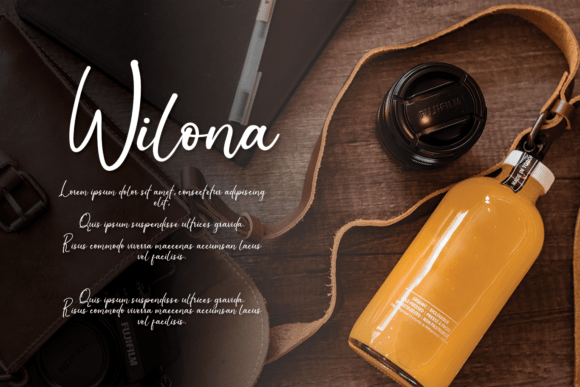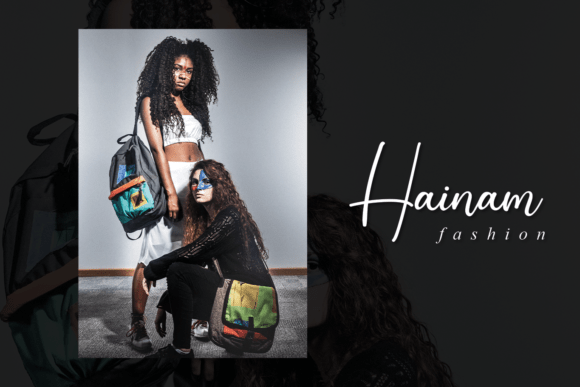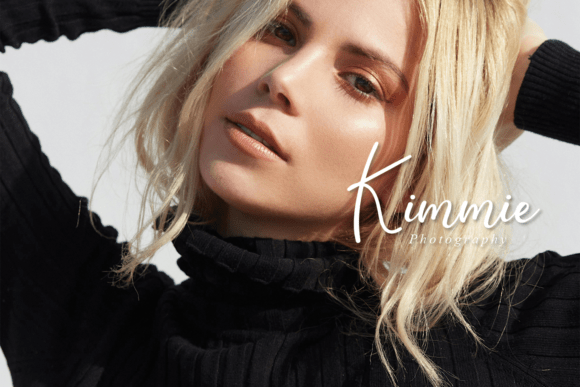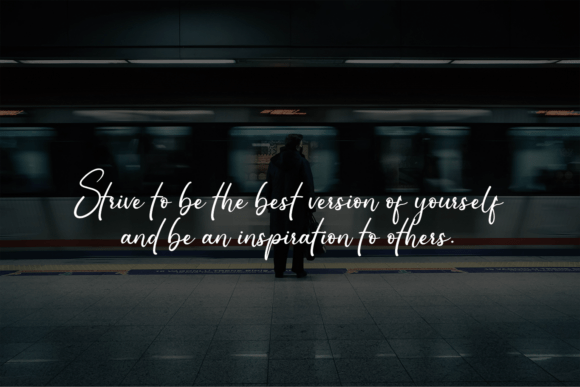
Introducing Birthday Font: The Ultimate Choice for Elegant Designs
Are you looking for a font that exudes elegance and sophistication? Look no further than Birthday Font, a stunning handwritten font that is sure to elevate your designs to the next level. With its flowing and graceful style, Birthday Font is perfect for creating beautiful wedding invitations, stationary art, social media posts, and more.
The Chic Style of Birthday Font
Birthday Font is a true showstopper, with its chic and refined style making it perfect for a variety of design projects. The font’s handwritten aesthetic gives it a personal and intimate feel, making it ideal for creating special and memorable designs. Whether you’re a designer, crafter, or DIY enthusiast, Birthday Font is sure to inspire your creativity and help you create stunning designs.
Uses for Birthday Font
The versatility of Birthday Font is one of its standout features. This beautiful font can be used for a wide range of design projects, including:
- Wedding Invitations: Create gorgeous wedding invitations that set the tone for a stylish and sophisticated celebration.
- Stationary Art: Design beautiful stationary art, including greeting cards, thank you cards, and more.
- Social Media Posts: Create eye-catching social media posts that are sure to grab attention and inspire engagement.
- Crafting Projects: Use Birthday Font to add a personal touch to your crafting projects, including scrapbooking, journaling, and more.
Why Choose Birthday Font?
So why choose Birthday Font over other fonts? Here are just a few reasons why this font stands out:
- Unique Style: Birthday Font has a unique and distinctive style that sets it apart from other fonts.
- Elegant and Sophisticated: This font exudes elegance and sophistication, making it perfect for high-end designs.
- Versatile: Birthday Font can be used for a wide range of design projects, from wedding invitations to social media posts.
- Easy to Read: Despite its elegant style, Birthday Font is easy to read, making it perfect for designs where clarity is key.
Tips for Using Birthday Font
Here are a few tips for getting the most out of Birthday Font:
- Use it Sparingly: While Birthday Font is beautiful, it can be overwhelming if used too much. Use it sparingly to create a sense of elegance and sophistication.
- Pair it with Other Fonts: Experiment with pairing Birthday Font with other fonts to create a unique and eye-catching design.
In conclusion, Birthday Font is a stunning handwritten font that is sure to elevate your designs to the next level. With its flowing and graceful style, this font is perfect for creating beautiful wedding invitations, stationary art, social media posts, and more. Whether you’re a designer, crafter, or DIY enthusiast, Birthday Font is a must-have font that is sure to inspire your creativity and help you create stunning designs.
Get Ready to Fall in Love with Birthday Font
So why wait? Fall in love with Birthday Font and start creating stunning designs today. With its unique style, elegant aesthetic, and versatility, Birthday Font is the perfect choice for anyone looking to add a touch of sophistication and elegance to their designs.